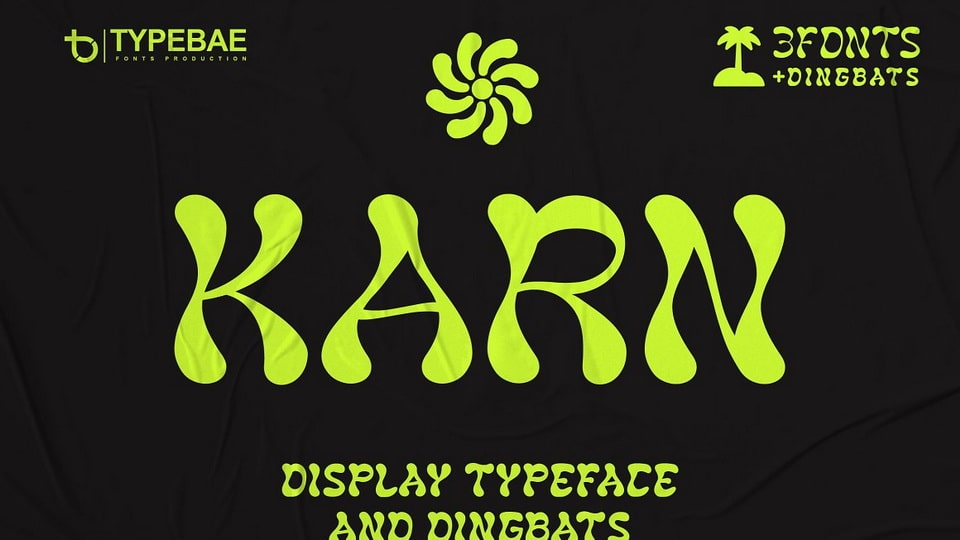
Download Karn font, a display typeface inspired by psychedelics. Karn font is perfect for projects that require fun and creativity.
Designer: Typebae